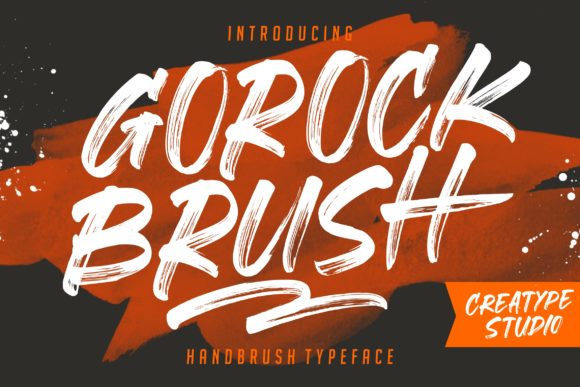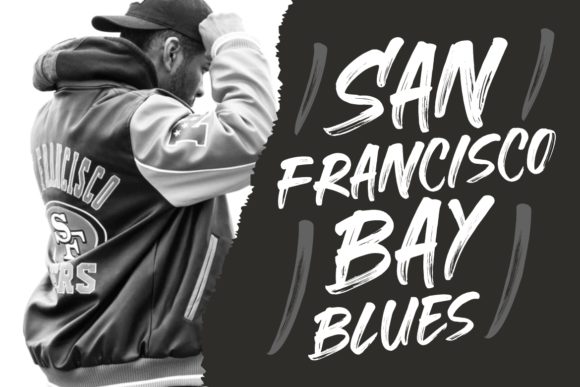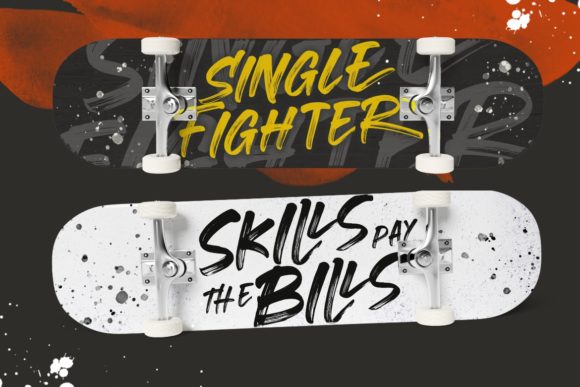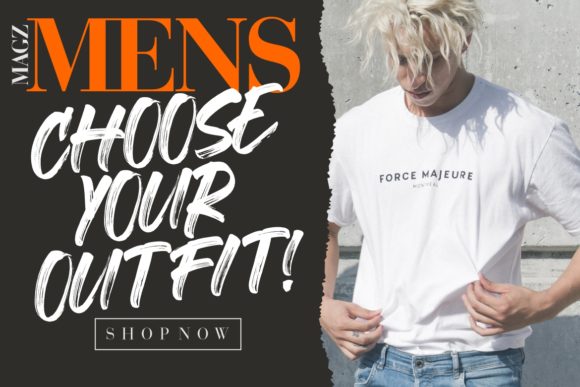
Gorock Brush Font
About the Gorock Brush Font
Experience the unique personality of Gorock Brush Font, a font designed for impact. Gorock Brush is a rough textured and daring display font. This font is a great fit for all of your logos, branding, posters, and crafty DIY projects.
Gorock Brush’s strong, textured strokes make it ideal for headlines, short impactful statements, and logos requiring a bold, rebellious feel. It excels in branding for products targeting a younger, more alternative audience, and works well on posters and packaging where a handcrafted, edgy aesthetic is desired. Avoid using it for body text or UI elements; its rough texture makes it unsuitable for extended reading.
Pairing Gorock Brush with a clean sans-serif like Open Sans for body copy creates a strong contrast, balancing its rugged character with readability. Alternatively, a classic serif font such as Garamond can add a touch of sophistication, grounding the boldness of Gorock Brush. For a more cohesive, slightly rougher look, consider pairing it with a geometric sans-serif with similar weight.
Its overall personality is best described as bold, rebellious, and handcrafted. Think streetwear brands, craft breweries, or music festivals – contexts where its raw energy can thrive.
Gorock Brush Font Usage Examples
Gorock Brush Font Example